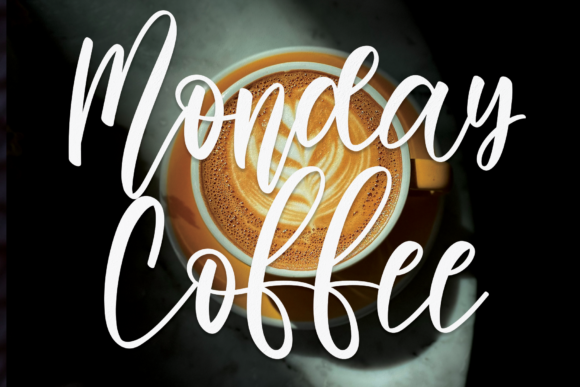
Behold, the Monday Coffee Font: An Ode to Boldness and Elegance
In a world that craves originality, your designs deserve a font that commands attention and leaves a lasting impression. Enter Monday Coffee, a chic and refined script font that embodies sophistication and exudes elegance. Dive into a realm of sleek curves and graceful glyphs, where style and substance harmoniously intertwine.
With its array of stylish alternates and ligatures, Monday Coffee offers the creative freedom to transform your vision into reality. Unleash your boldness and watch as your designs flourish with an air of distinction. Whether crafting logos that demand attention, posters that captivate, or invitations that embody grace, Monday Coffee stands as your steadfast companion.
Imagine the impact of a wedding invitation adorned with Monday Coffee's elegant strokes, inviting guests into a celebration of love. The flowing characters dance across the page, creating an atmosphere of romance and enchantment. Or envision the allure of a business card adorned with Monday Coffee's sophisticated curves, subtly communicating professionalism and confidence.
As you explore the depths of Monday Coffee's versatility, you'll discover its aptitude for capturing the essence of a bold and beautiful brand. It's a font that speaks volumes without uttering a single word, captivating audiences with its timeless allure. Monday Coffee isn't just a font; it's a statement of individuality, creativity, and unwavering style.
So, embrace the Monday Coffee experience and witness the transformation of your designs. Let the world bask in the brilliance of your bold and elegant vision, brought to life by the unparalleled charm of Monday Coffee.